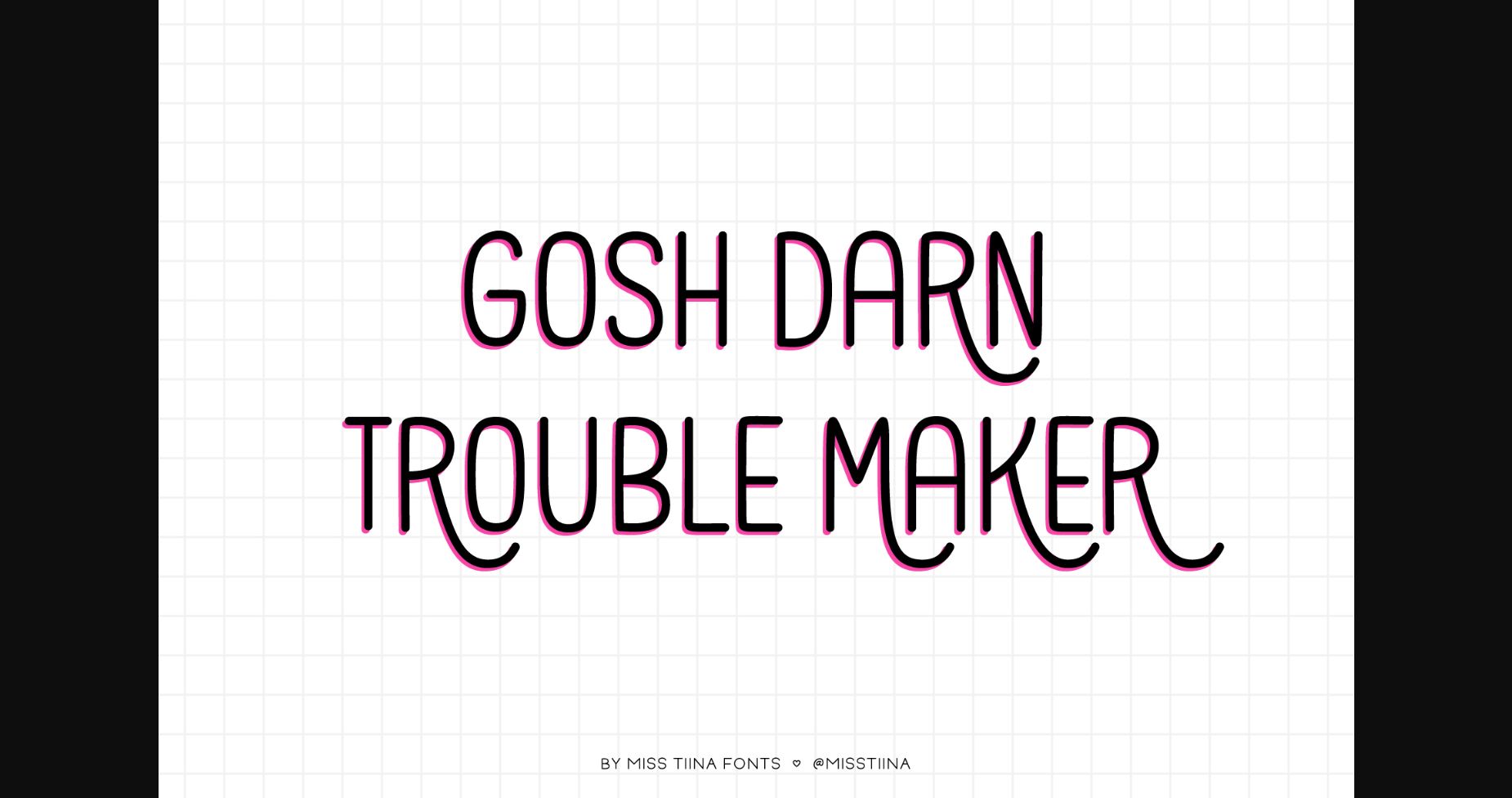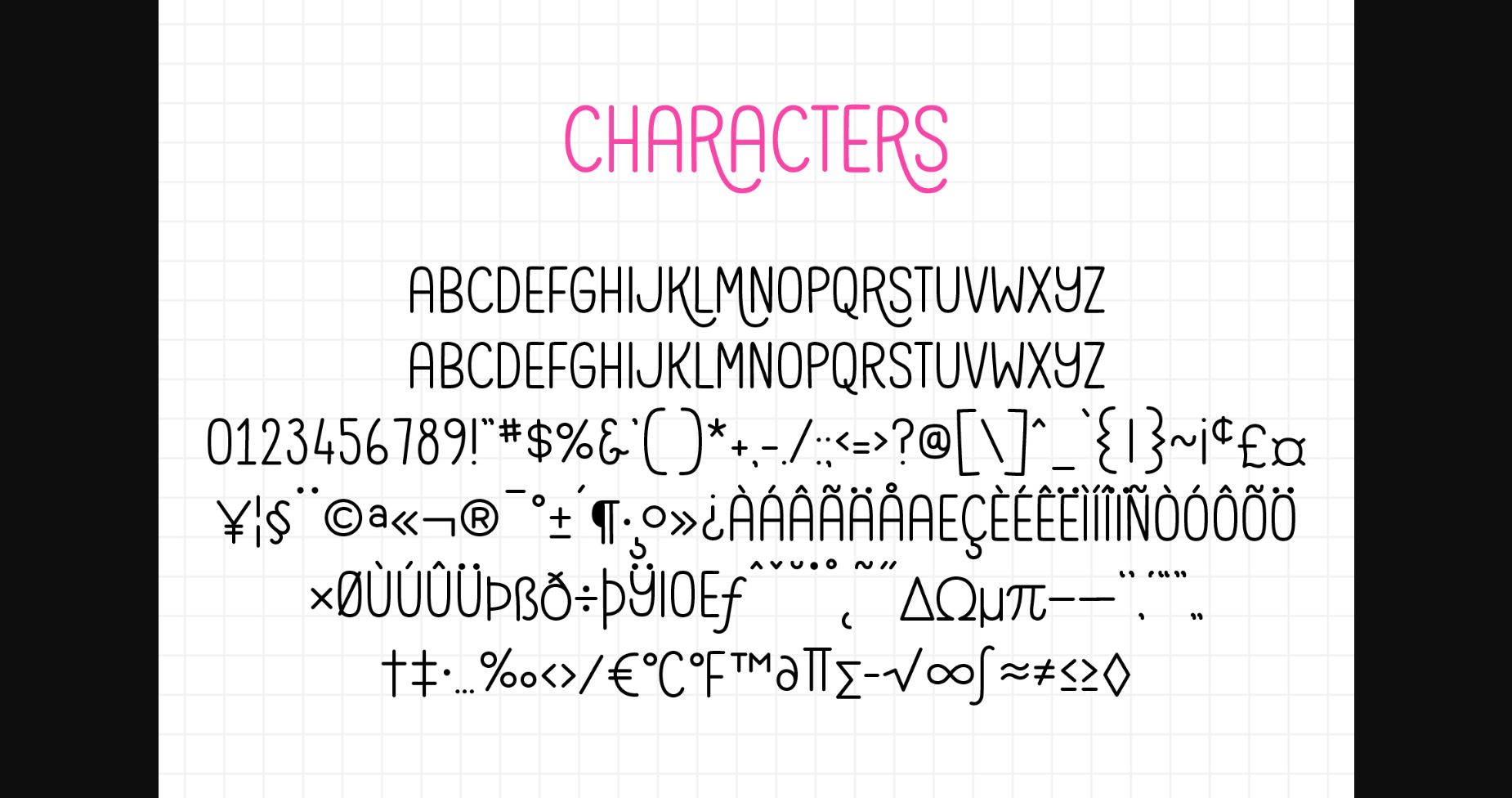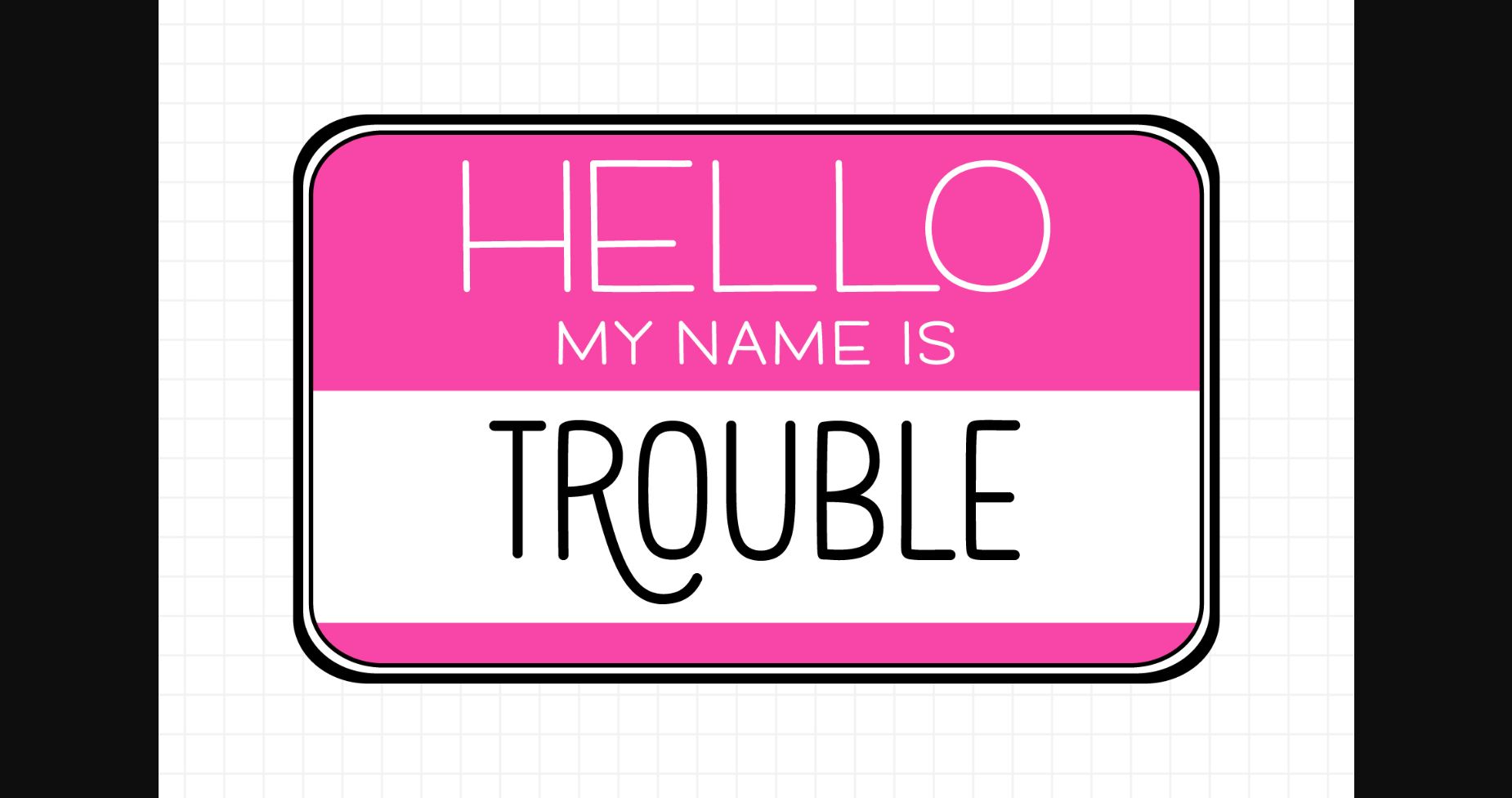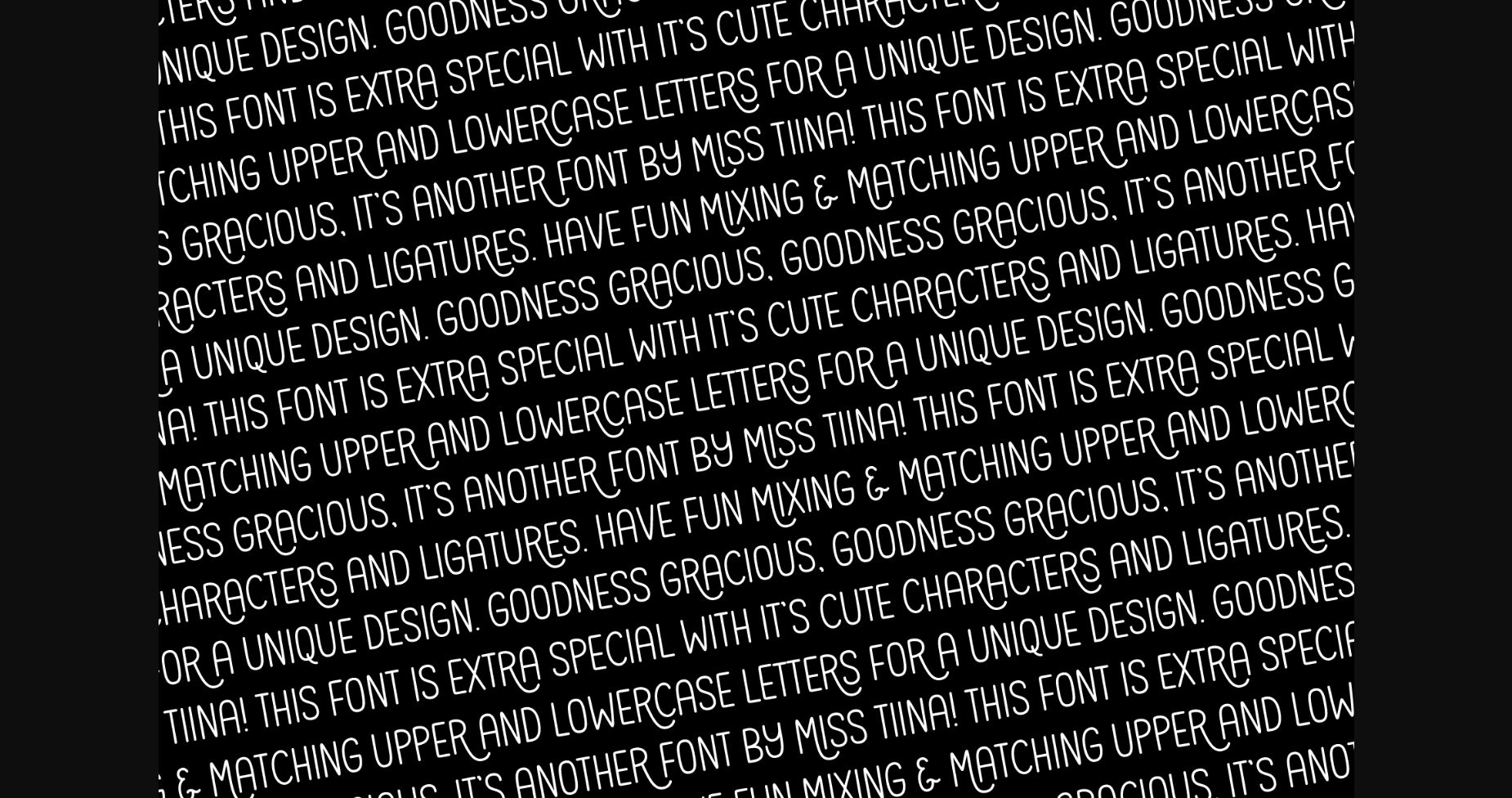
About Gosh Darn Trouble Maker Font
Gosh Darn Trouble Maker is a fresh and fun sans-serif font capable of adding a whimsical touch to your designs. Add it to covers, branding materials, packaging, or anything. You’ll love its fantastic legibility and alternates!